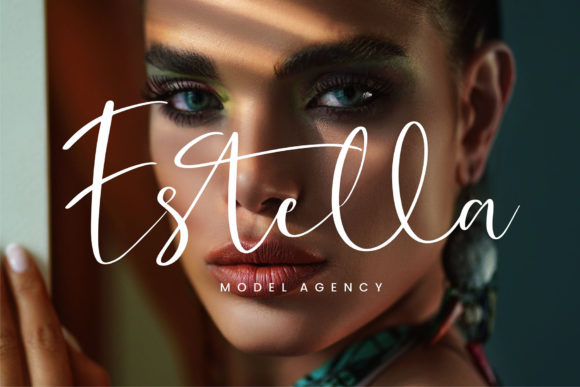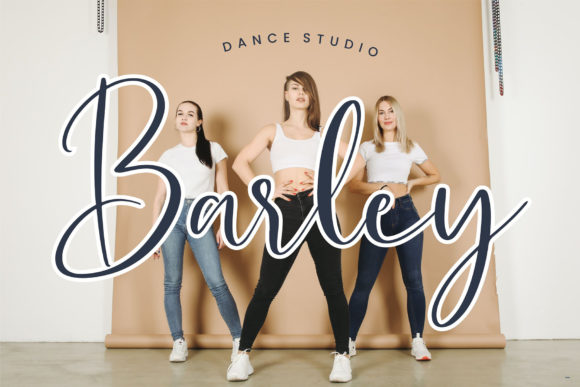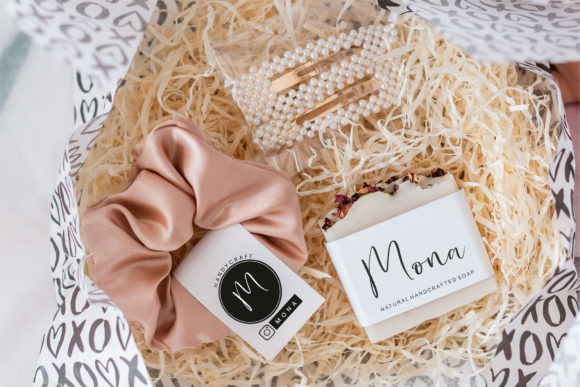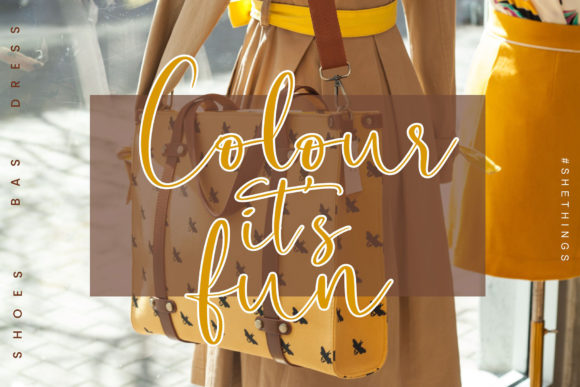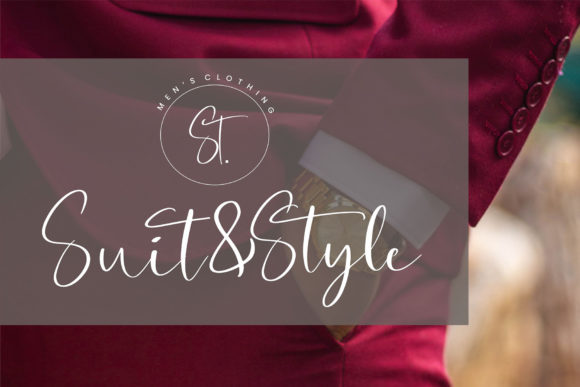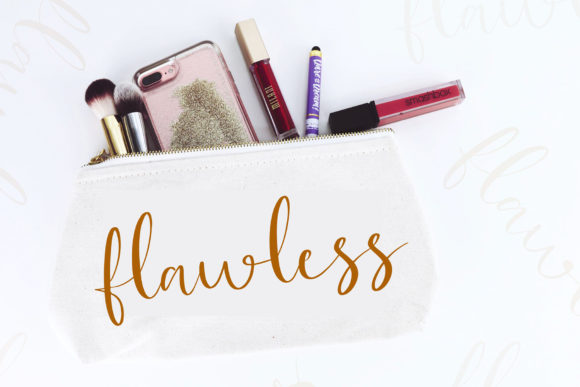
Dostella Font: The Perfect Addition to Your Design Arsenal
In the world of typography, fonts play a crucial role in conveying emotions and setting the tone for a project. If you’re a designer or crafter looking for a font that exudes romance and sophistication, look no further than Dostella Font. This fashionable script font has been making waves in the design community, and for good reason. With its elegant and flowing lines, Dostella is perfect for a wide range of applications, from greeting cards to headlines.
What is Dostella Font?
Dostella Font is a genuine script font that boasts a unique and stylish aesthetic. Its intricate details and beautiful swashes make it an excellent choice for designers who want to add a touch of elegance to their work. Whether you’re creating a wedding invitation, a romantic poster, or a stylish blog, Dostella Font is sure to impress.
Key Features of Dostella Font
- Elegant Script Style: Dostella Font features a beautiful script style that is perfect for creating romantic and sophisticated designs.
- Large Spectrum of Applications: From greeting cards to headlines, Dostella Font can be used in a wide range of projects.
- Romantic Feel: This font is guaranteed to add a romantic feel to your next project, making it perfect for wedding-related designs, Valentine’s Day promotions, and more.
- High-Quality Design: Dostella Font is designed with high-quality craftsmanship in mind, ensuring that your designs look professional and polished.
Uses of Dostella Font
Dostella Font is incredibly versatile, making it suitable for a variety of design projects. Here are some ideas to get you started:
- Greeting Cards: Create beautiful and elegant greeting cards for special occasions like weddings, anniversaries, and Valentine’s Day.
- Headlines and Titles: Use Dostella Font to create stunning headlines and titles for your blog posts, articles, and social media graphics.
- Wedding Invitations: Make your wedding invitations stand out with Dostella Font’s elegant and sophisticated style.
- Branding and Packaging: Use Dostella Font to create a cohesive brand identity for your business, adding a touch of elegance to your packaging and marketing materials.
Tips for Using Dostella Font
To get the most out of Dostella Font, here are some tips to keep in mind:
- Pair with Other Fonts: Experiment with pairing Dostella Font with other fonts to create a unique and visually appealing combination.
- Use Swashes and Flourishes: Take advantage of Dostella Font’s beautiful swashes and flourishes to add a touch of elegance to your designs.
- Adjust Font Size and Color: Experiment with different font sizes and colors to find the perfect combination for your design.
In conclusion, Dostella Font is a fashionable script font that is sure to add a romantic feel to your next project. With its elegant and flowing lines, this font is perfect for a wide range of applications, from greeting cards to headlines. Whether you’re a designer or crafter, Dostella Font is an excellent addition to your design arsenal. So why wait? Download Dostella Font today and start creating stunning designs that exude romance and sophistication.